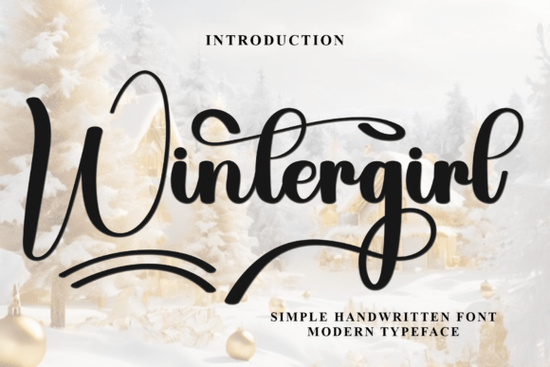
Finding the right typography can completely change the mood of a design. If you are working on a project that needs a warm, friendly vibe, the Wintergirl Font is a highly versatile choice. This casual display typeface features round, playful strokes that give off a relaxed and approachable feel. It is especially useful for crafters, print-on-demand sellers, and creative hobbyists who want to add a hand-drawn aesthetic to their work without spending hours drawing letters from scratch. The charming curves make it an excellent fit for both digital graphics and physical crafts.
What kind of projects work best with this casual typeface?
Because of its charming and informal look, this lettering style shines in personal and lighthearted designs. Crafters often use it for vinyl decals, greeting cards, scrapbooking, and custom party invitations. If you run a print-on-demand shop, the rounded edges print beautifully on coffee mugs, canvas tote bags, and baby apparel. The friendly nature of the letters makes them highly readable even at smaller sizes on tags and labels.
When you need a slightly different vibe for a summer project, you might want to pair it with a cheerful handwritten style to create visual contrast in your layout. For children's book covers or nursery wall art, combining it with playful lettering options helps maintain a fun, youthful energy throughout the entire design.
If you decide to mix this with bold display typefaces for an event poster, having easy access to these alternate glyphs ensures your text layout remains balanced and professional. Similarly, when working on floral-inspired typography projects, the extra swashes can weave nicely around botanical illustrations to create a cohesive, organic look.
Is it suitable for small business branding?
Yes, but it ultimately depends on your specific brand identity. Small businesses that focus on handmade goods, organic products, bakeries, or boutique services benefit greatly from this relaxed typography. It communicates authenticity and warmth, which helps build trust with customers scrolling through social media feeds.
However, if your brand caters to rugged, outdoorsy demographics, you might want to reserve this font for seasonal sales or special announcements. For your primary logo or core branding, you might prefer outdoor-themed designs that better reflect your niche. Using a casual script for promotional Instagram stories, email headers, or Pinterest pins is a highly effective way to make your brand feel more human and approachable without losing your core identity.